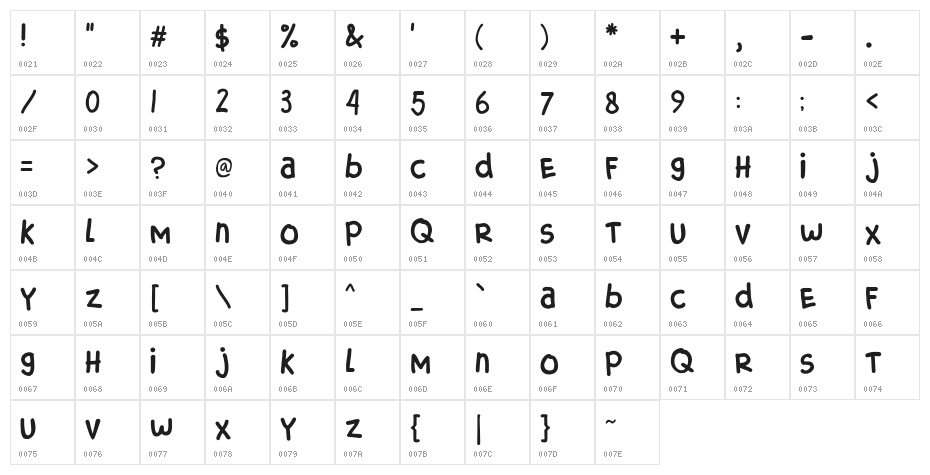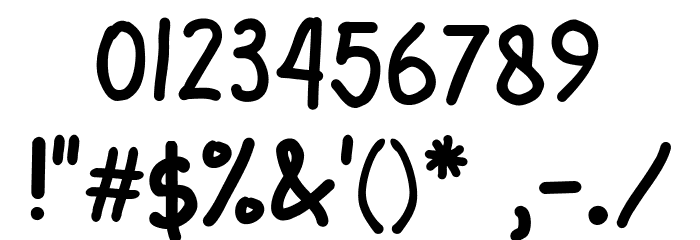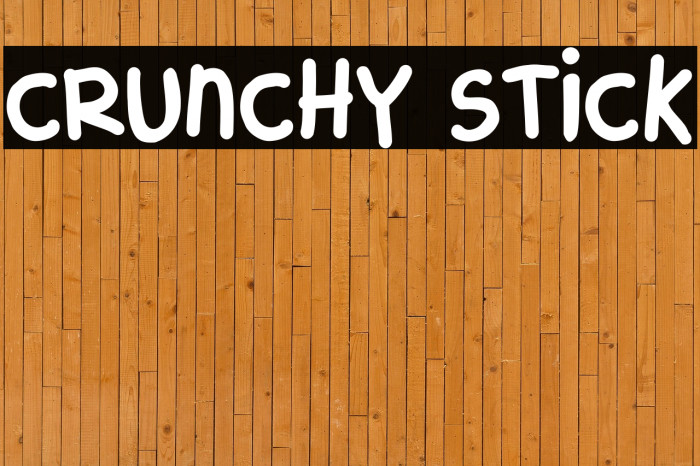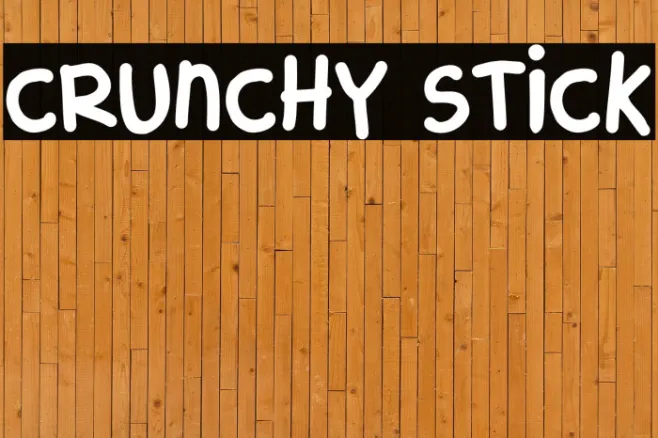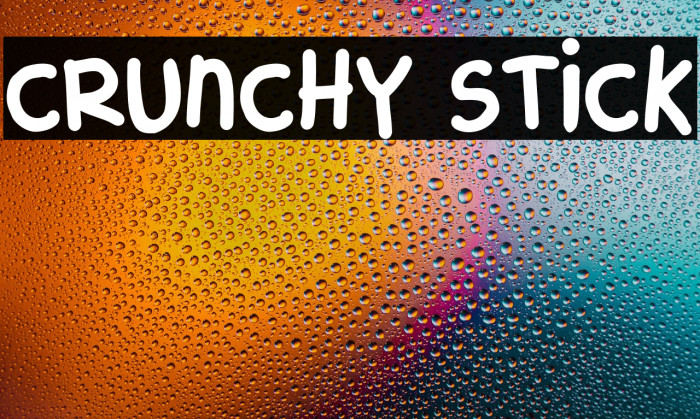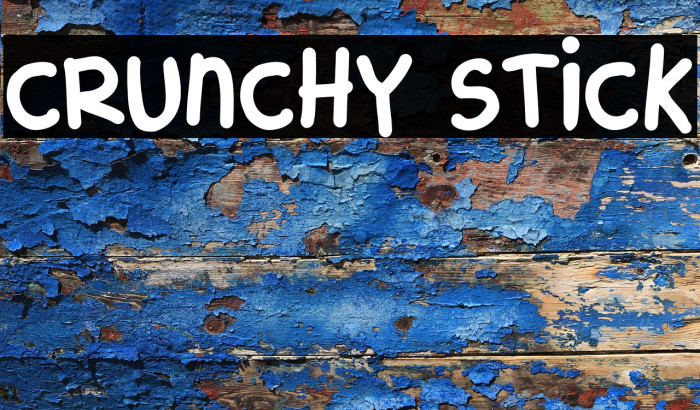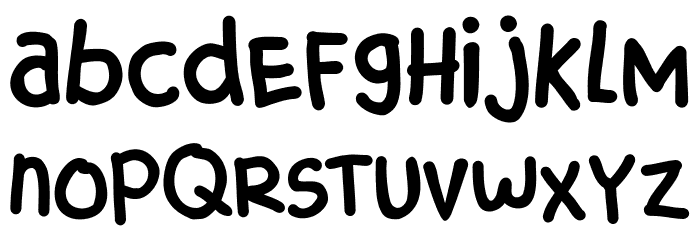
CRUNCHY STICK Font
CRUNCHY STICK Description
This playful and bold font features a handwritten style with rounded edges and a casual, friendly appearance. Each character is slightly irregular, adding to its charm and approachability. The letters are thick and consistent in weight, providing a strong presence on the page. The font maintains a uniform height across both uppercase and lowercase letters, ensuring readability. Its whimsical nature makes it ideal for projects that require a touch of fun and creativity. The numbers and special characters are designed to match the playful aesthetic, making them perfect for a variety of informal applications.
| Proposed Projects | Ideal for children's books, playful branding, greeting cards, and casual invitations. |